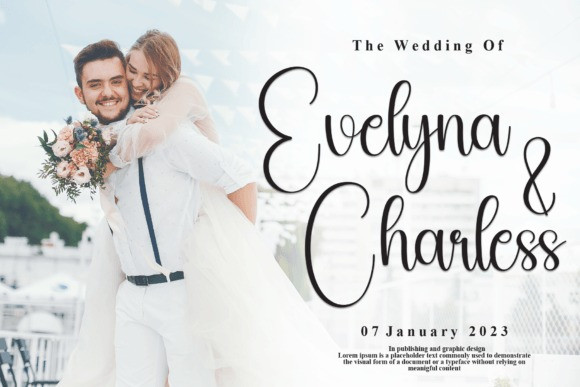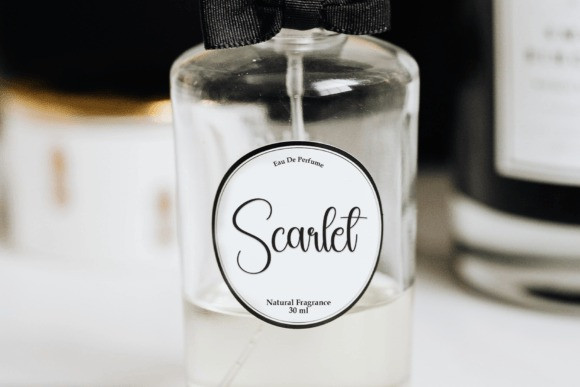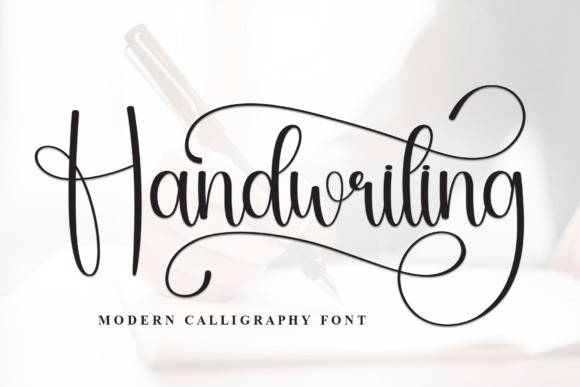
Handwriting Script Font
Handwriting Script Font is a modern calligraphy font that effortlessly blends style and simplicity. With graceful strokes and a contemporary touch, this font adds a chic and personalized flair to your projects. Perfect for invitations, cards, or any creative endeavor, Handwriting brings a trendy and elegant vibe to your text. Elevate your design with the timeless charm of Handwriting for a sophisticated and modern look.